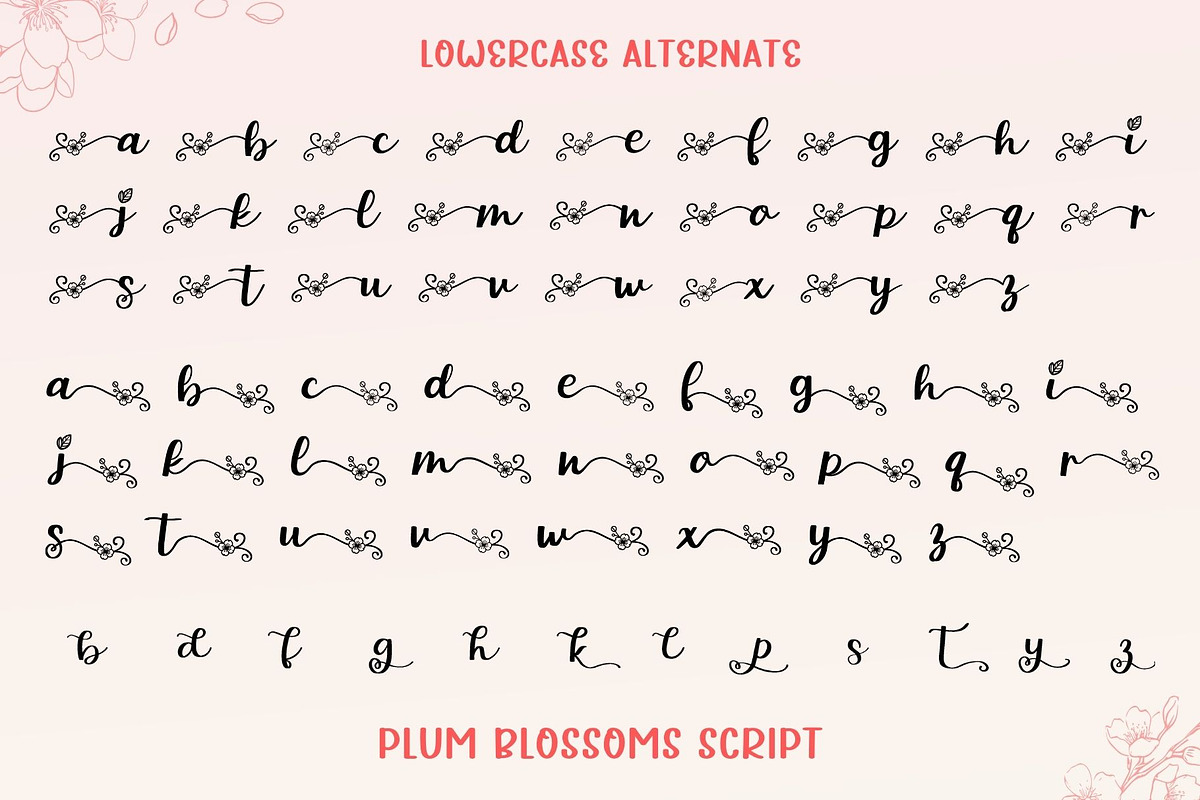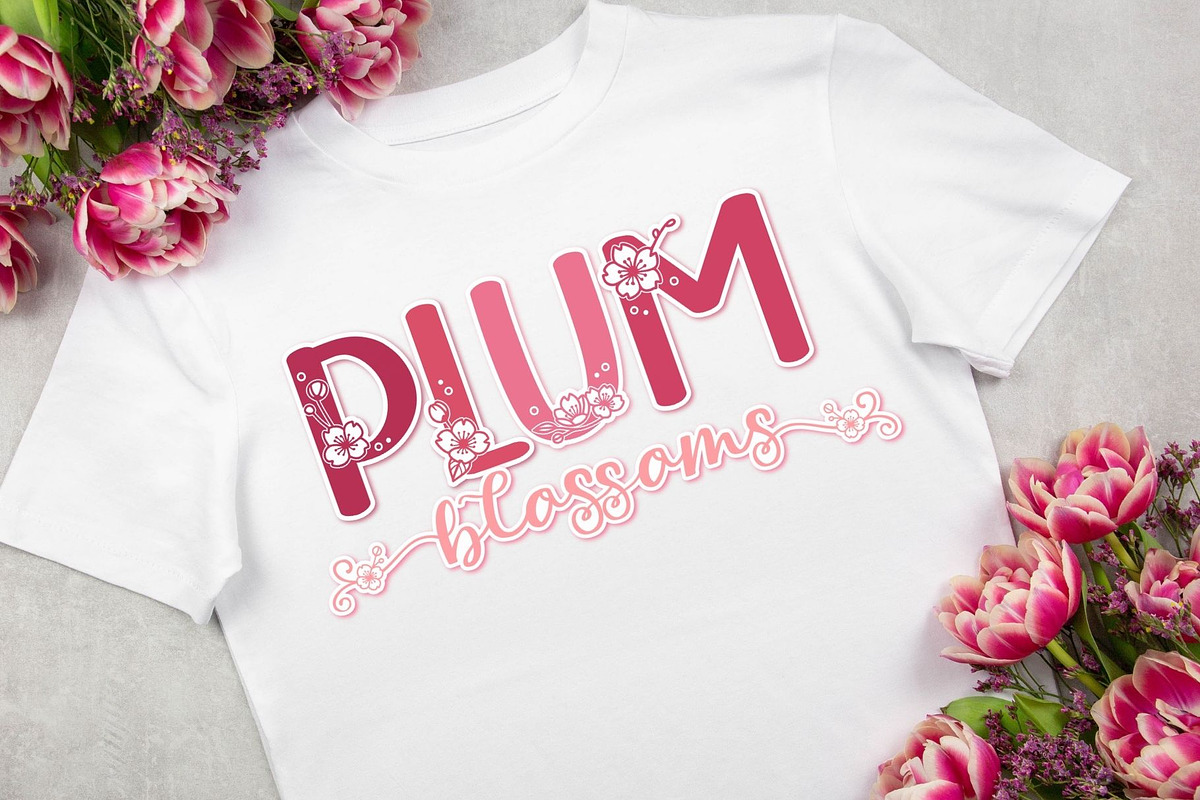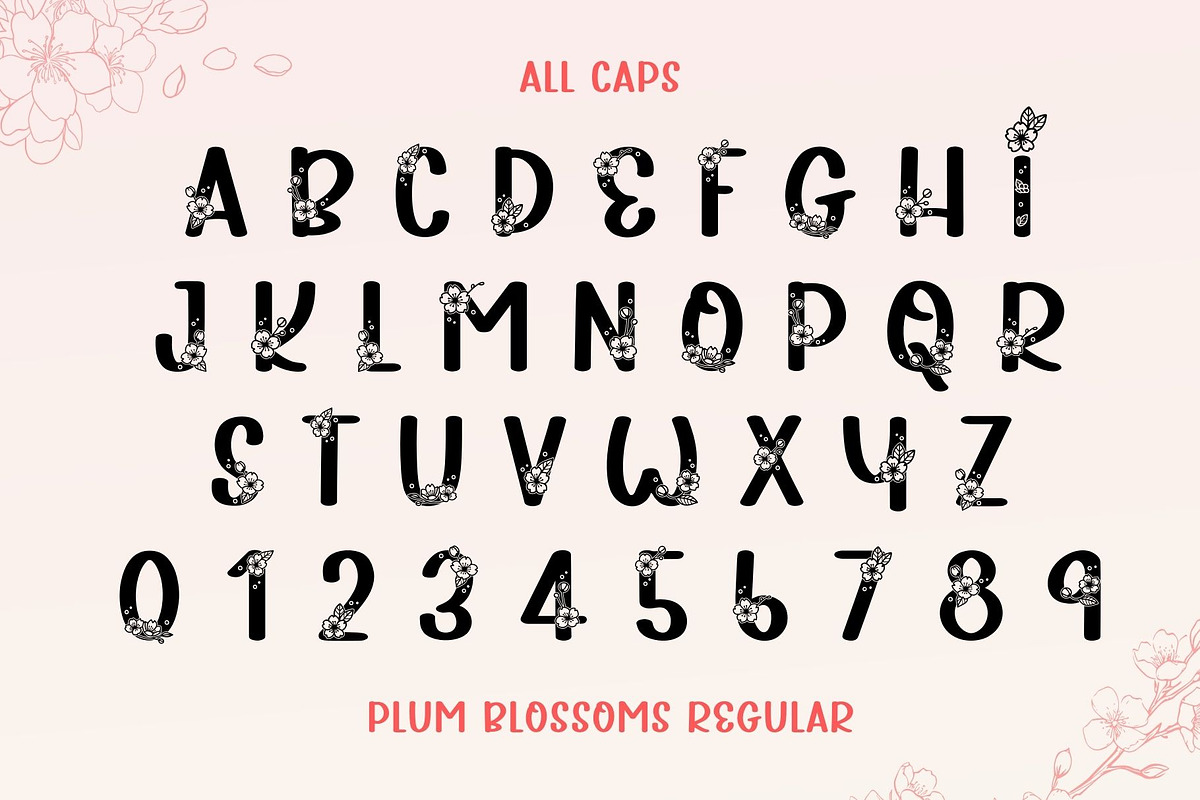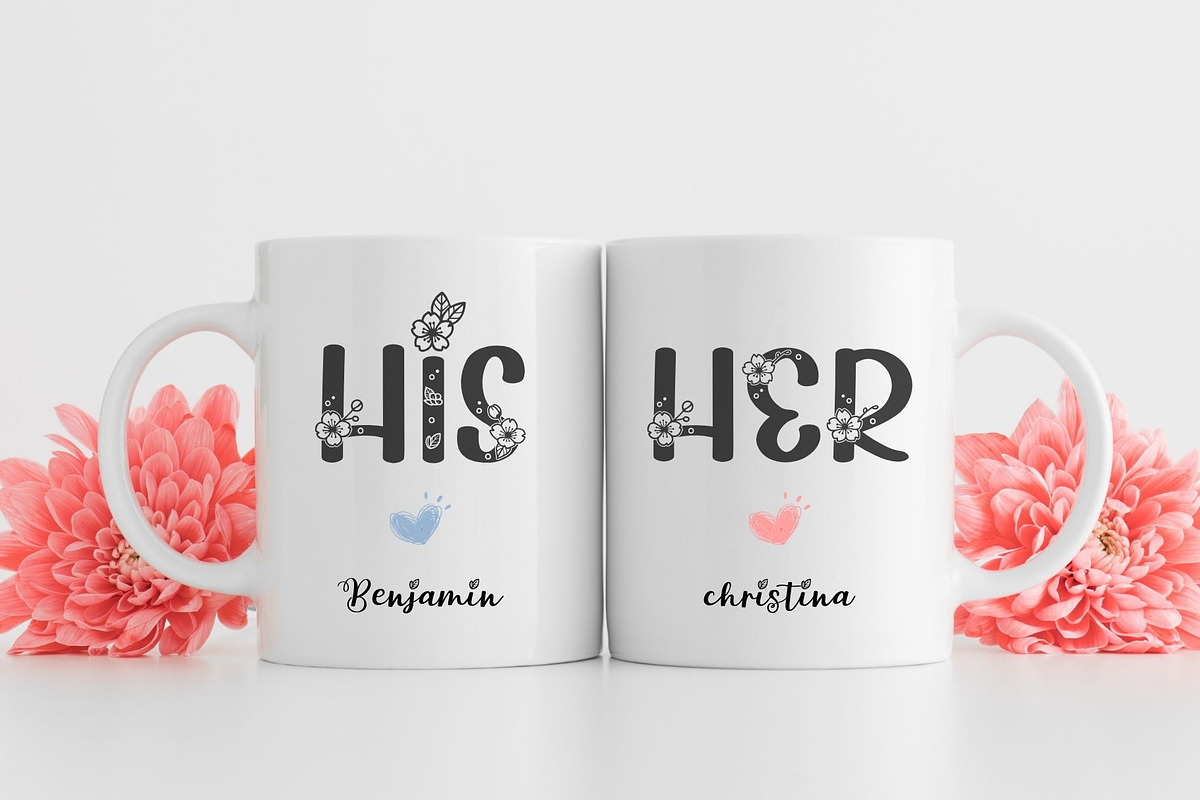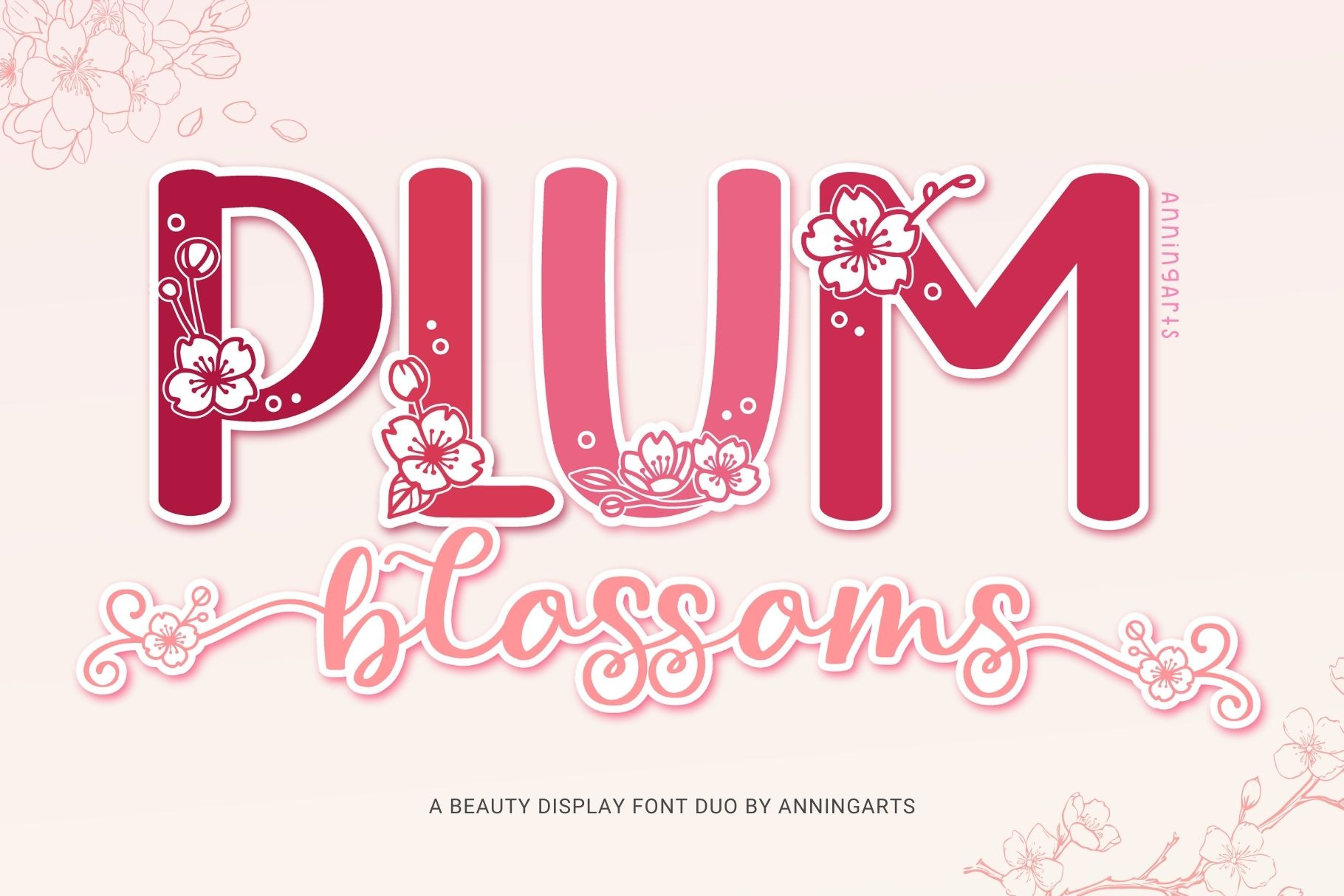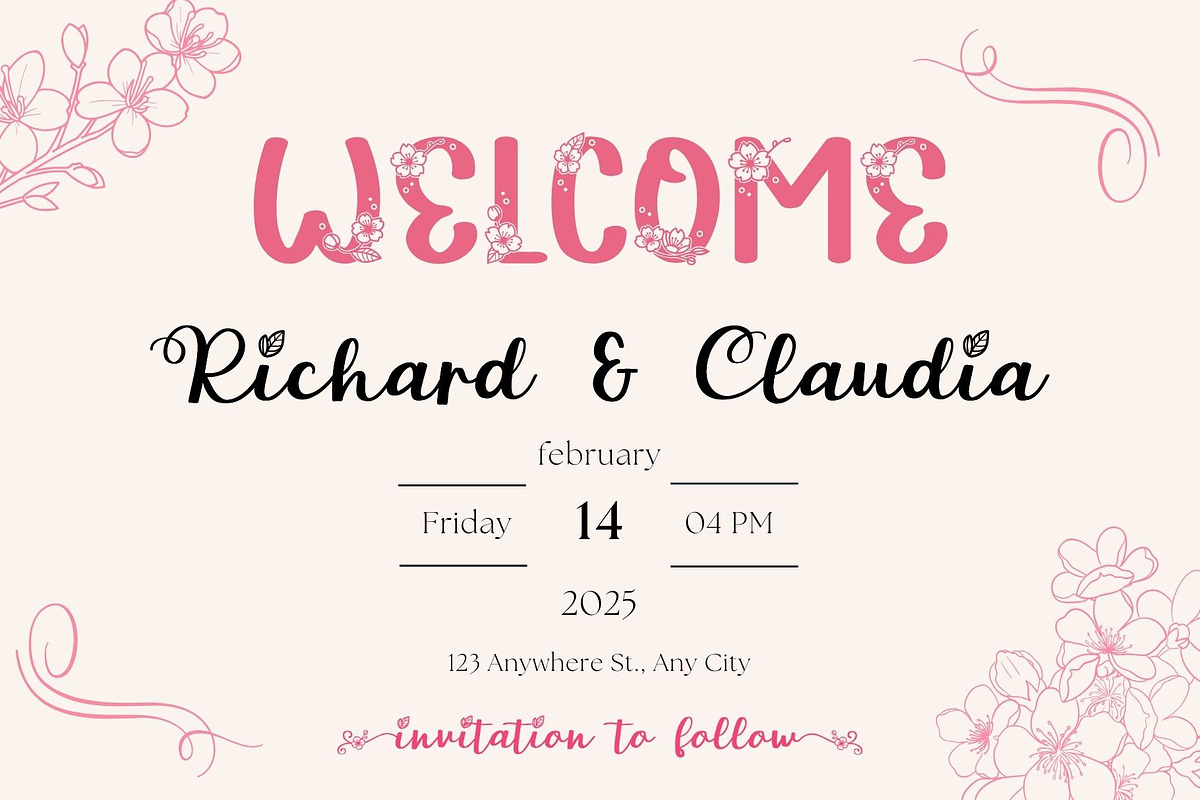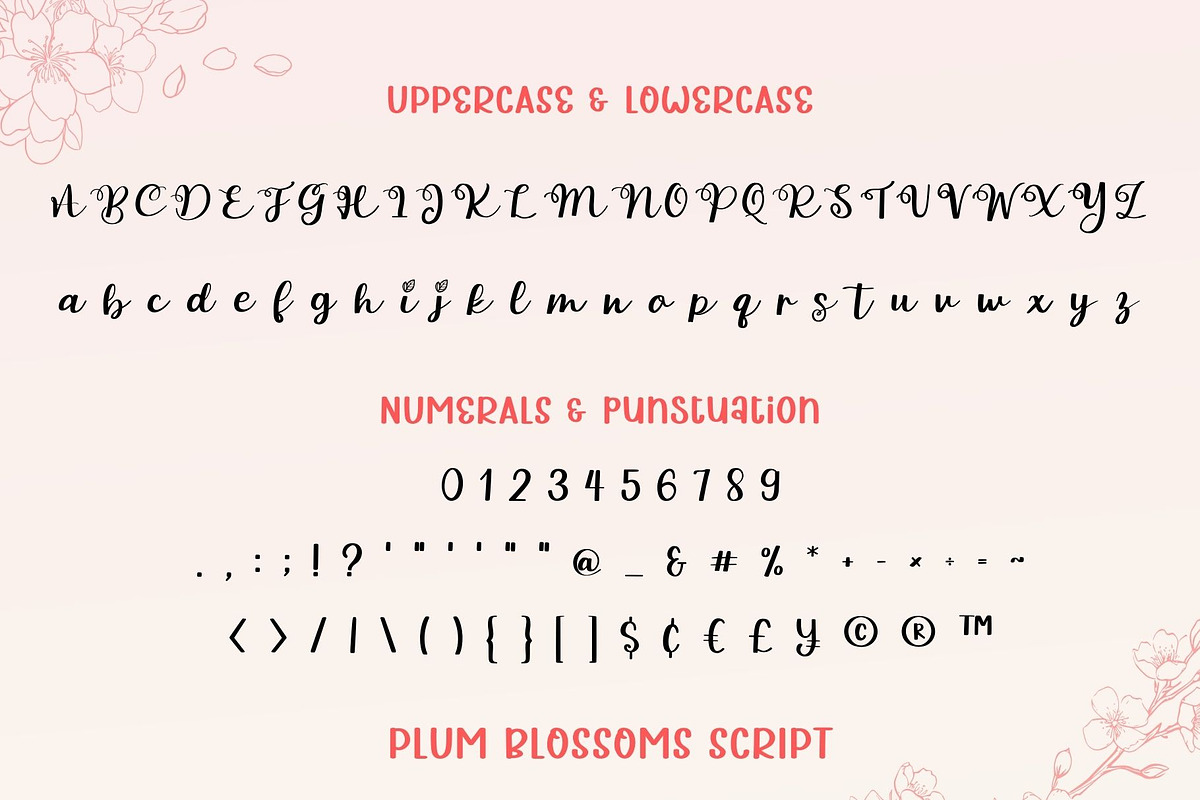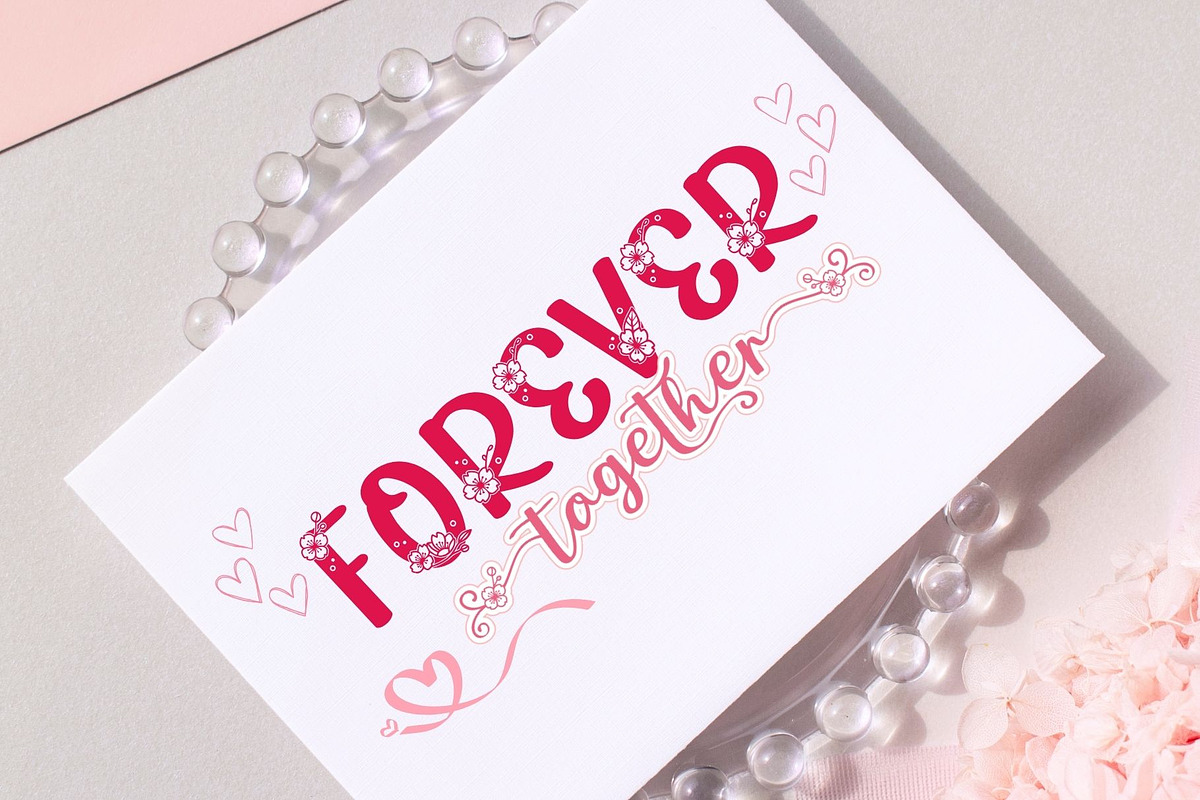
Plum Blossoms Font Duo
Introducing Plum Blossoms, a stunning font duo that combines a bold display font with a delicate script font, creating the perfect harmony for your creative projects. This beautiful display font duo is inspired by the elegance of plum blossoms, featuring intricate floral accents that embellish the bold uppercase letters. The accompanying script font adds a soft, romantic touch with its flowing, hand-drawn style.
Perfect for branding, packaging, wedding invitations, greeting cards, posters, and more, Plum Blossoms brings a touch of whimsy and charm to your designs.